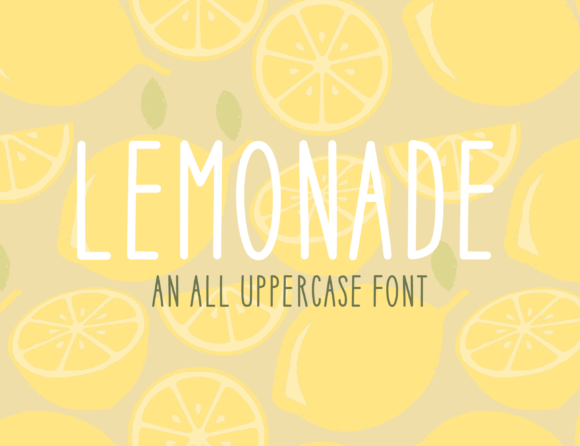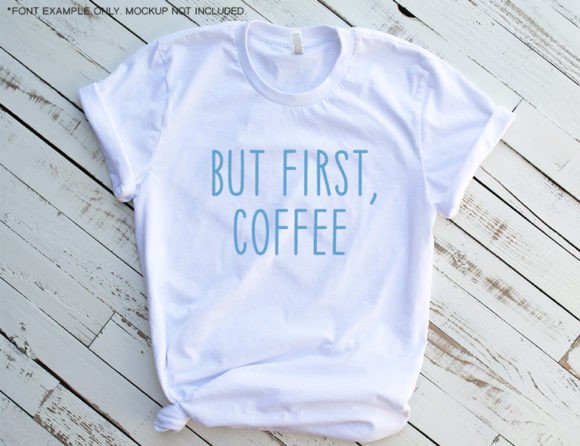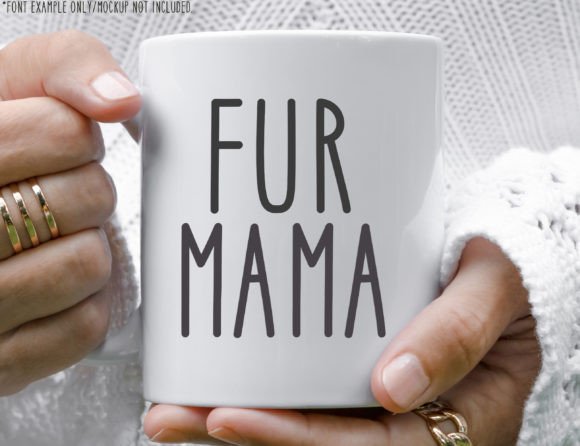
About Lemonade Font
**Lemonade**: *Where Fun Meets Simplicity*
Lemonade is more than just a font; it’s a fun and simple handwritten typeface that seamlessly combines playfulness with simplicity. With its hand-drawn style, this font is perfect for a wide range of creative projects, from digital note-taking in GoodNotes to crafting in Procreate and more. Lemonade effortlessly achieves a super cute look that can enhance various design endeavors.
What sets Lemonade apart is its ability to effortlessly blend fun with simplicity. The font’s handwritten characters exude a sense of whimsy and casual charm, making it an ideal choice for projects that require a touch of playfulness and a dose of uncomplicated style. Lemonade is the font that easily adds a dash of cuteness and a hint of simplicity to your designs.
Lemonade strikes a balance between modern aesthetics and hand-drawn charm, making it a versatile choice for a range of creative applications.
Whether you’re taking digital notes, creating in Procreate, or working on various crafting projects, Lemonade brings a unique sense of character and visual appeal to your content. The font’s playful strokes and hand-drawn quality infuse your projects with an inviting and cute vibe. Whether you’re designing for digital platforms or physical mediums like Cricut, Lemonade brings an air of cuteness and simplicity to your creative work.
One of Lemonade’s most remarkable qualities is its adaptability. It seamlessly fits into a variety of contexts, making it suitable for different creative needs. Its ability to convey fun and simplicity ensures that it remains a beloved choice for designers and creators across various industries.
In summary, Lemonade is more than just a font; it’s a design asset that masterfully combines fun with simplicity. Its hand-drawn characters and playful charm make it an essential tool for anyone looking to infuse their creative projects with a touch of cuteness and a hint of uncomplicated style. Embrace the fun and simplicity of Lemonade, and watch your designs come to life with ease and creative flair, leaving a lasting impression and captivating your audience with its cheerful and simple presence.